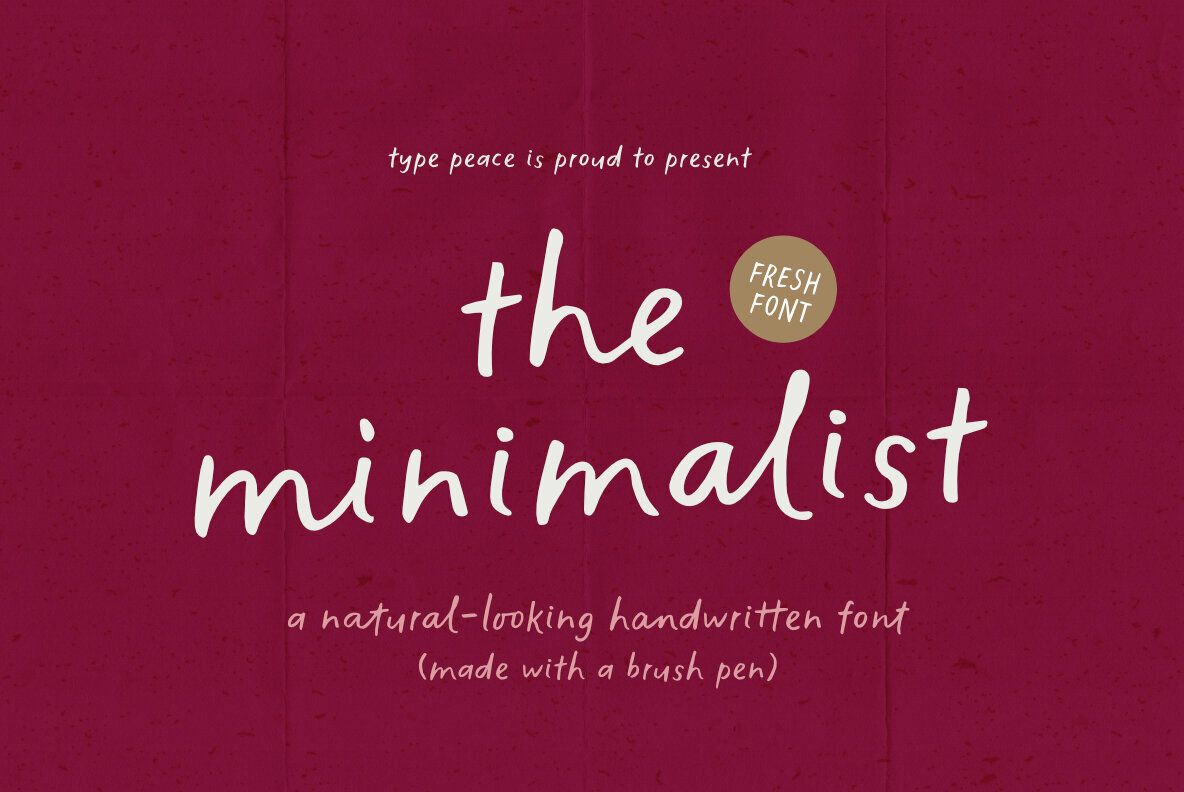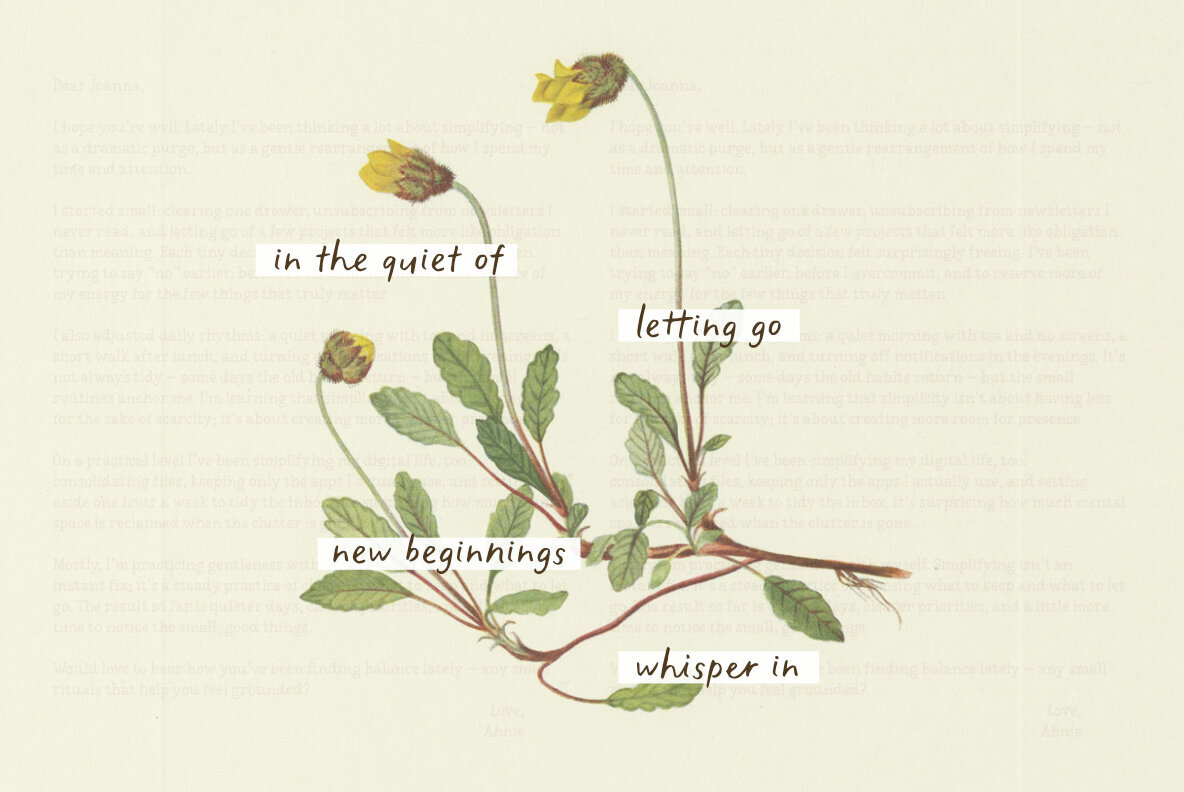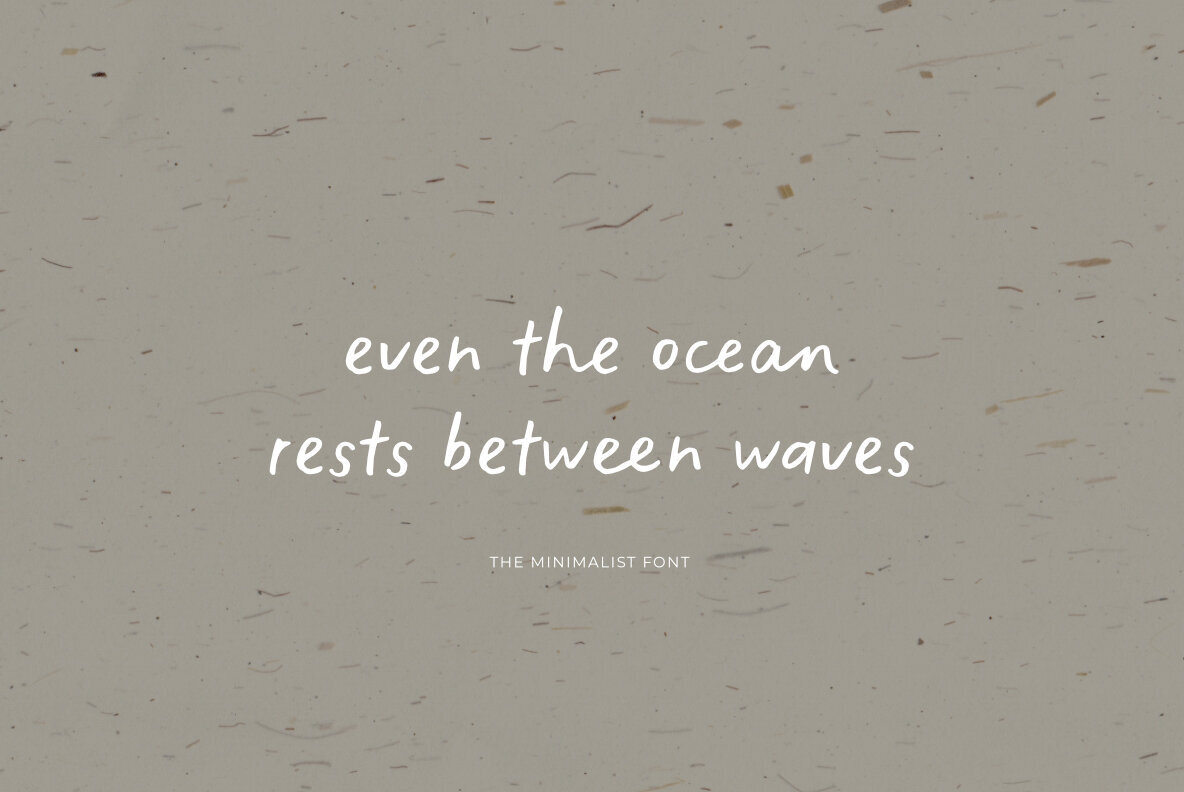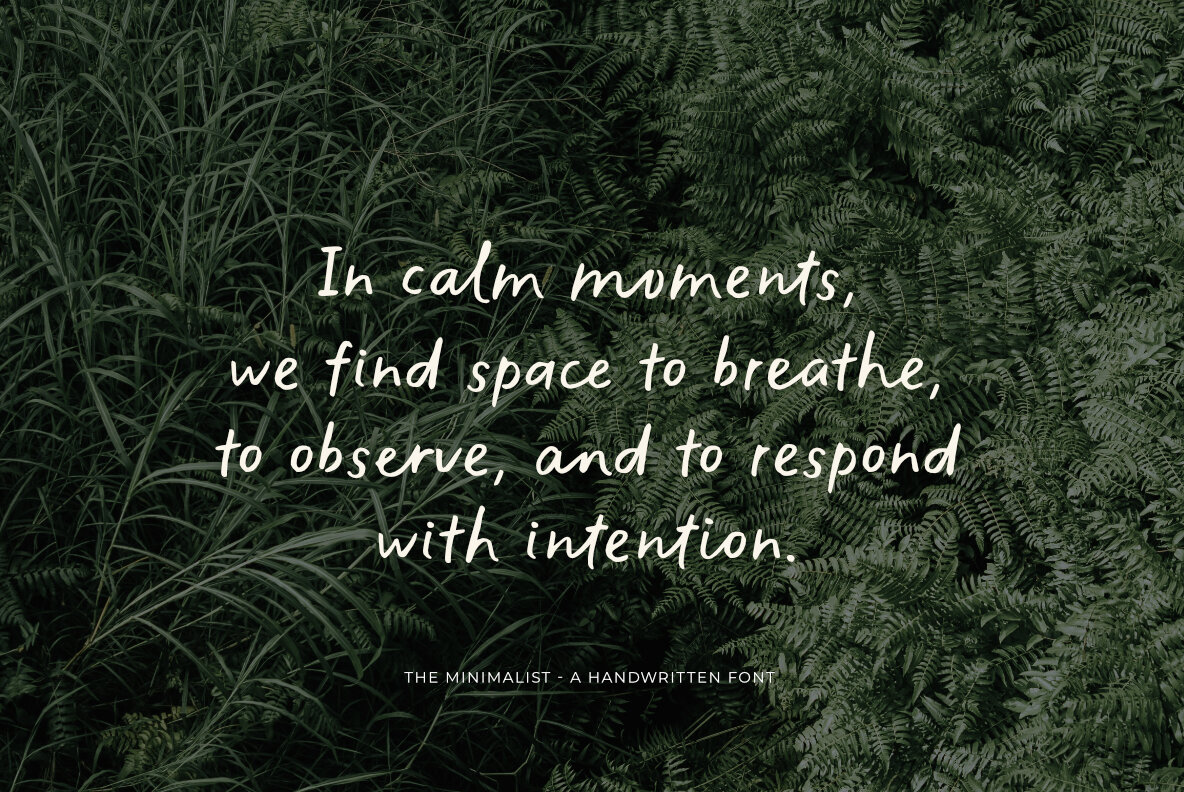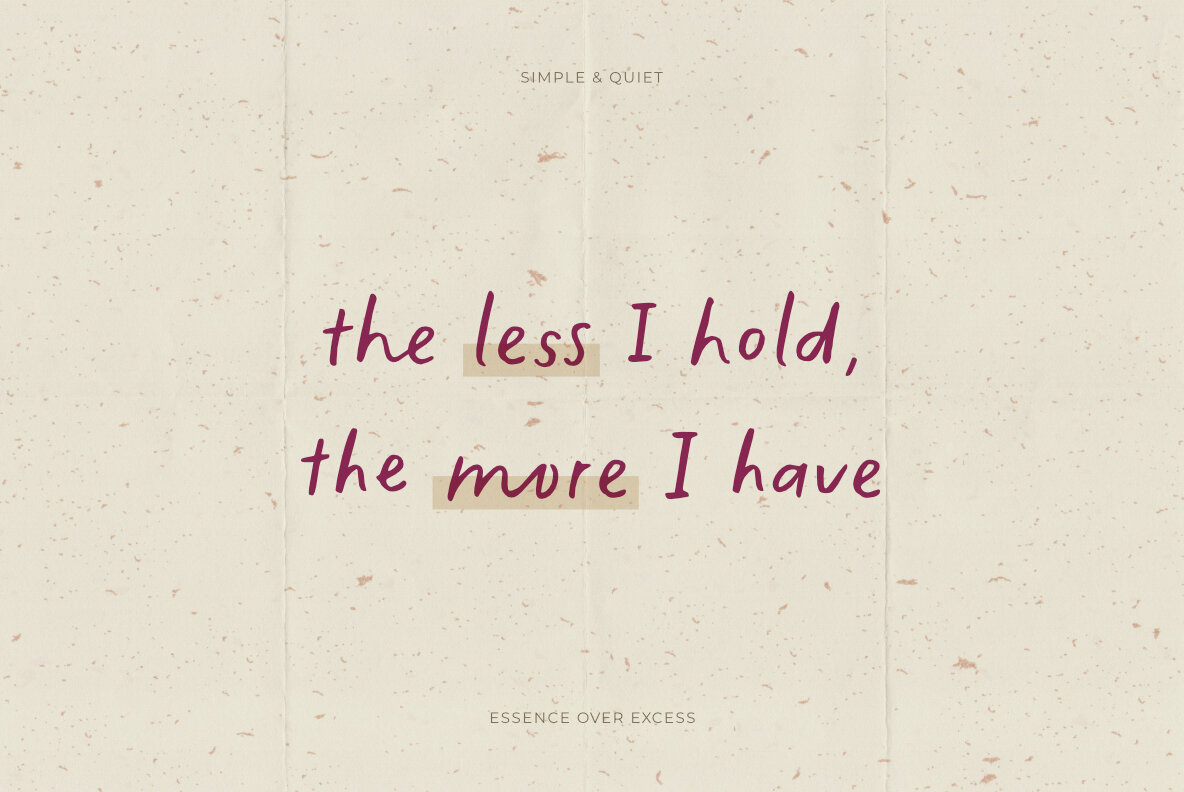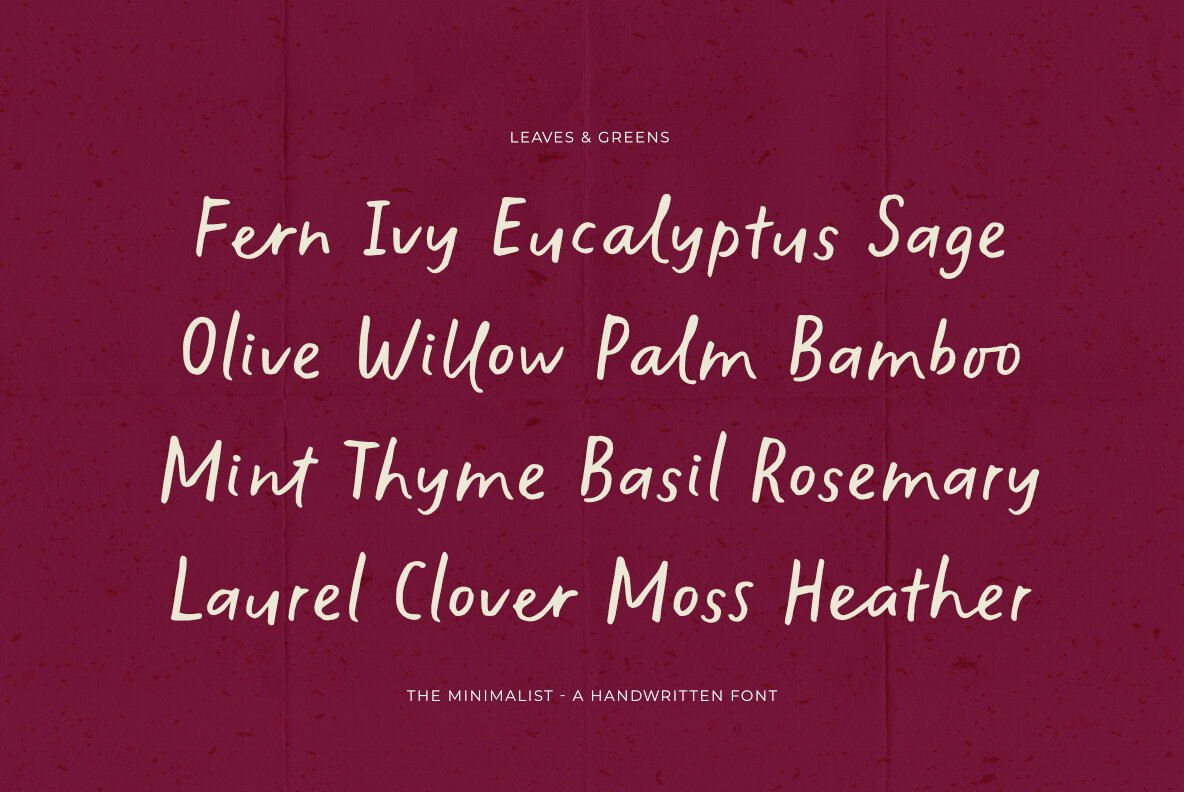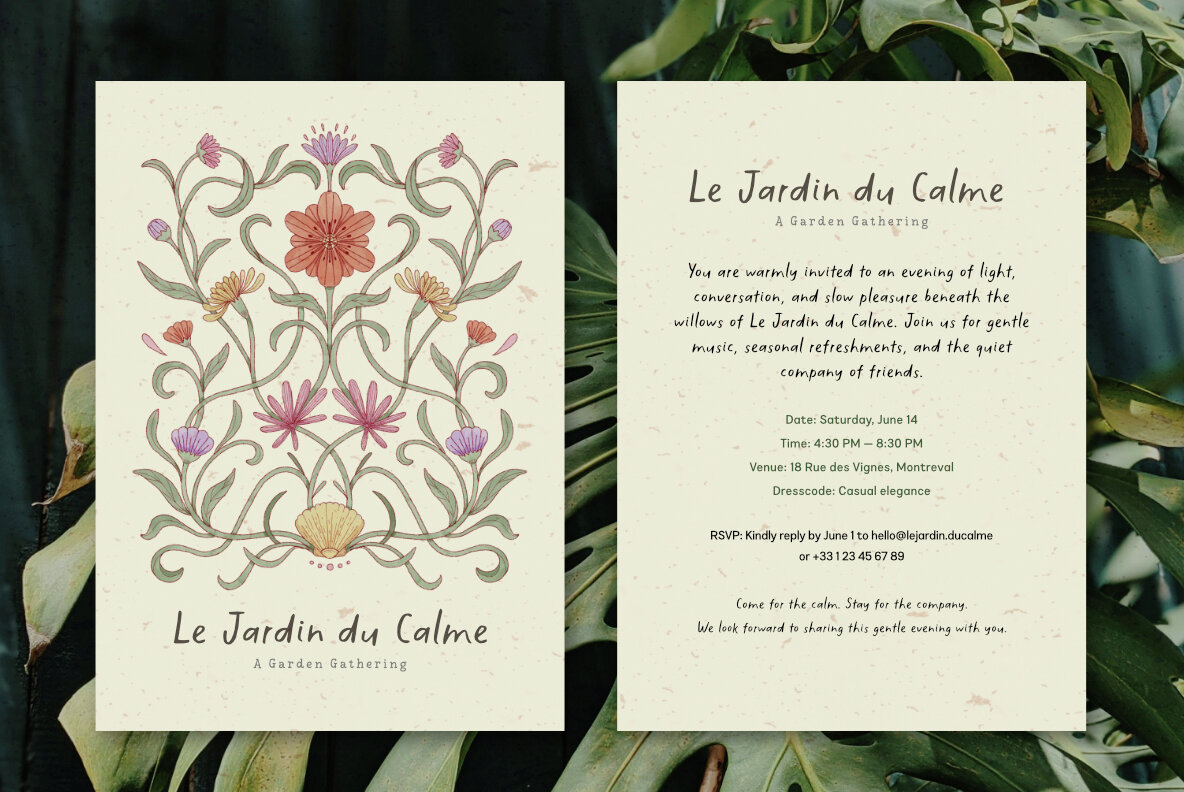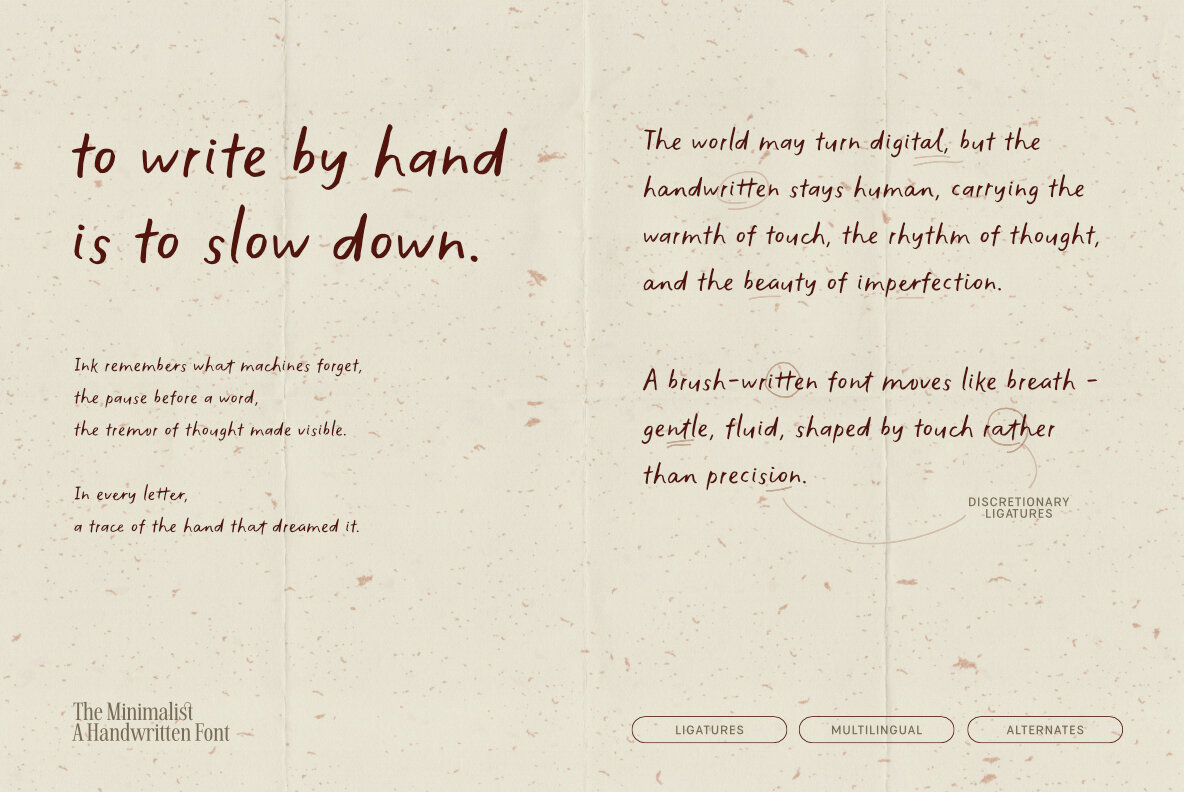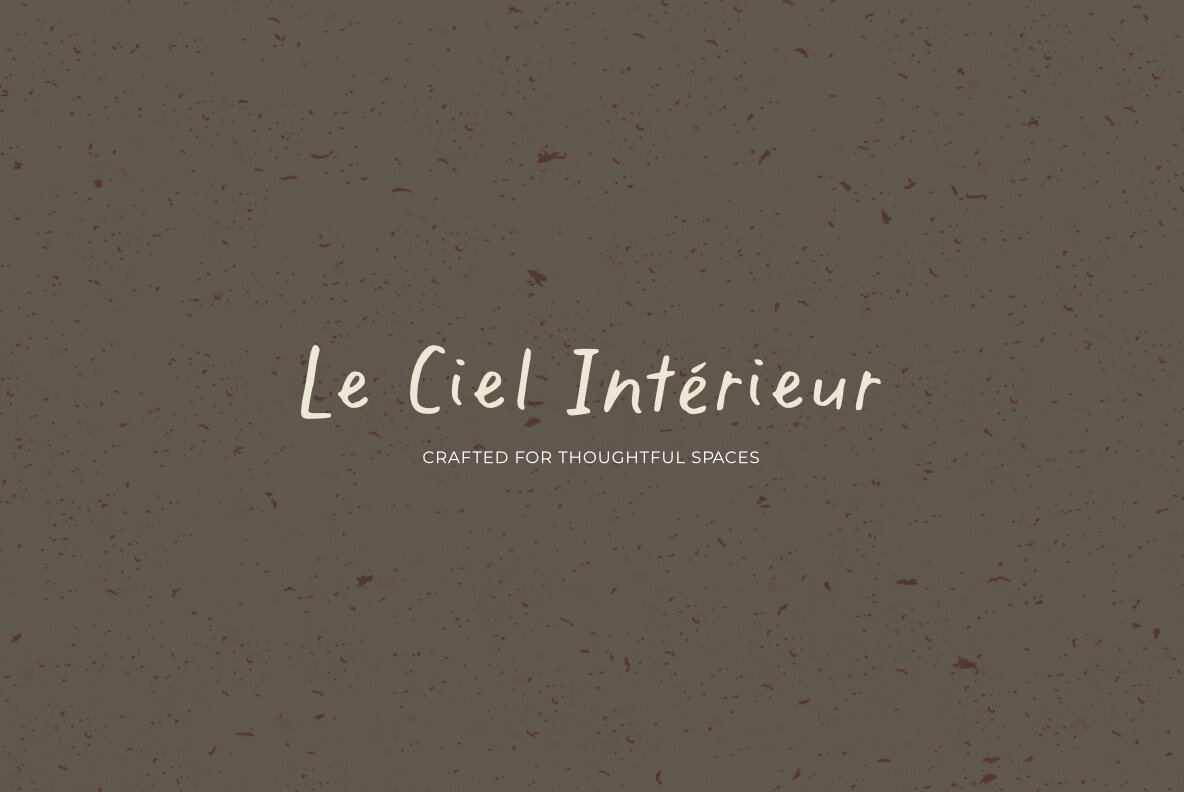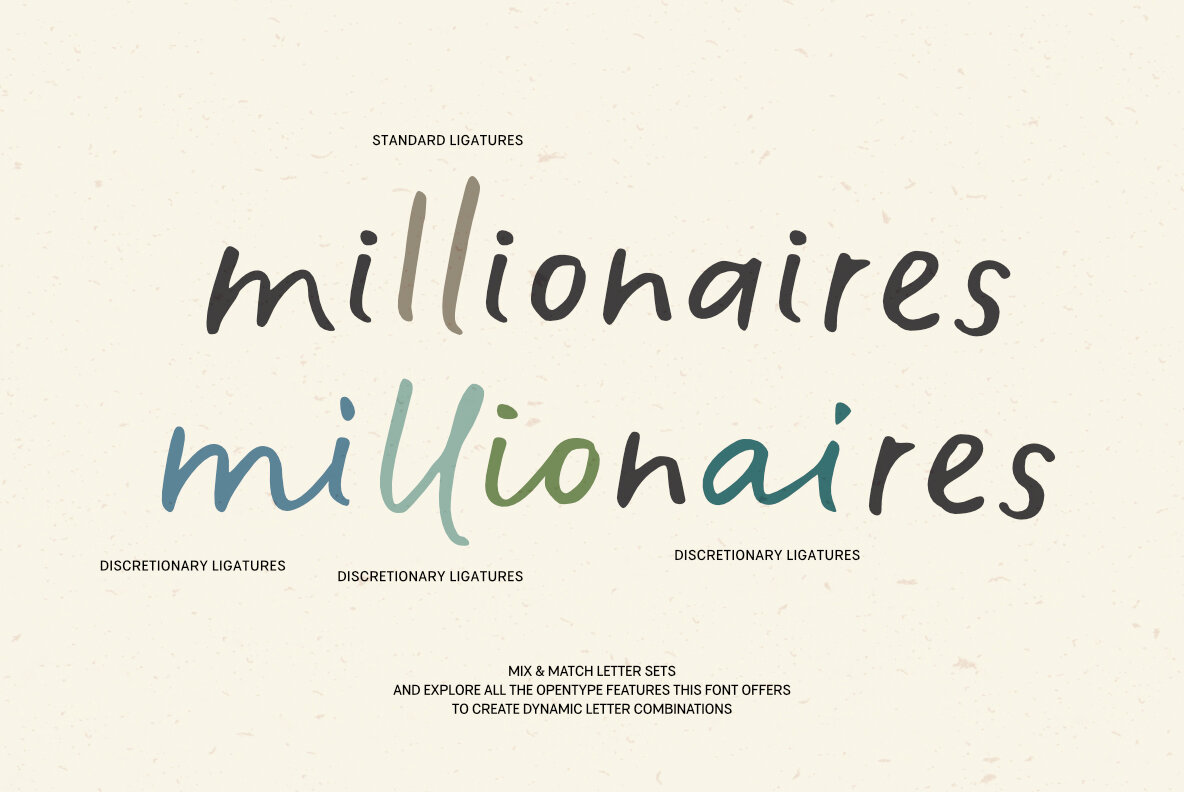
The Minimalist Font
The Minimalist emerges as a naturally handwritten typeface, crafted with the finesse of real brush pen strokes. Its organic texture and gentle flow offer an authentic hand-lettered experience, imbuing each character with warmth and personality. Featuring dual variations of each letter along with rich OpenType capabilities, this font enables seamless rhythm and fluidity in your designs. Complete with multilingual support, it perfectly complements projects seeking a genuine, artistic, and unforced human touch. The font automatically replaces duplicate adjacent letters with alternate designs for a more realistic handwritten appearance. If this feature does not apply automatically, activate the Standard Ligatures in OpenType features. Explore the dynamic possibilities by mixing and matching letter sets to make the most of this font's OpenType features.The Minimalist: An Organic Handwritten Typeface